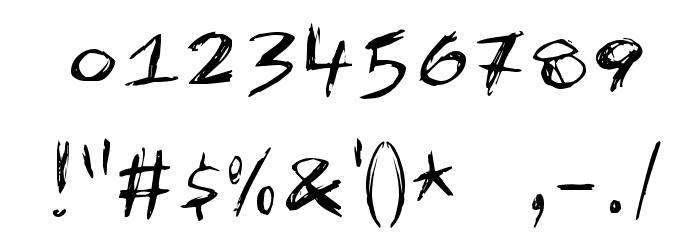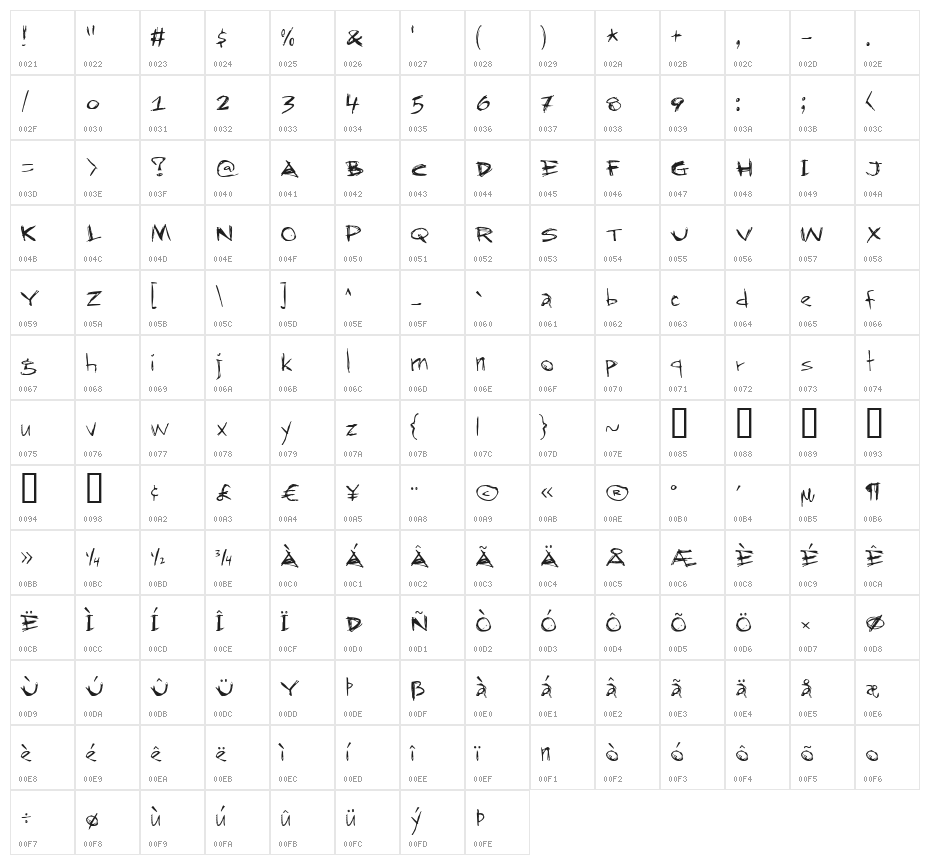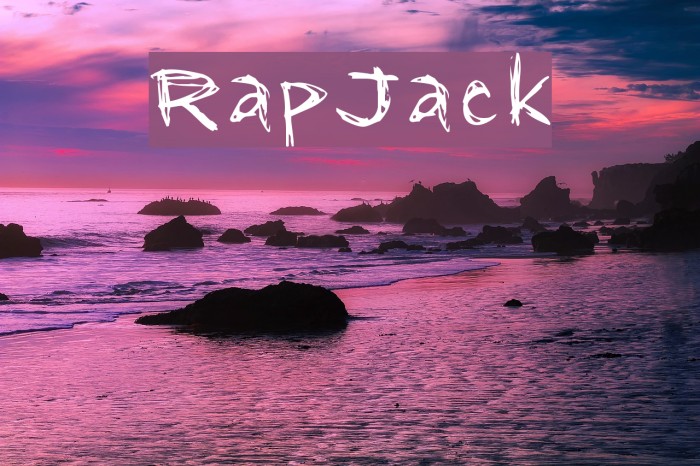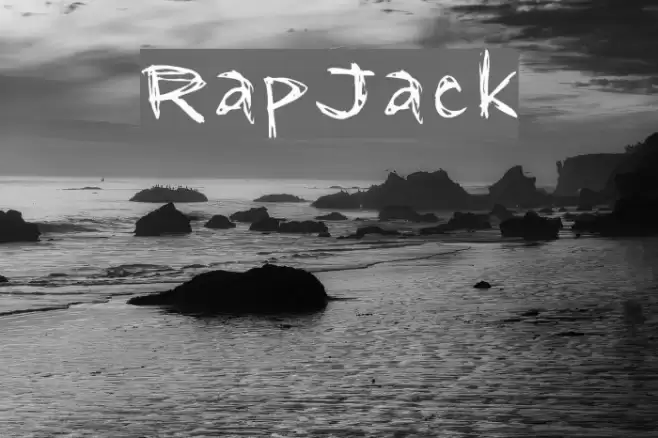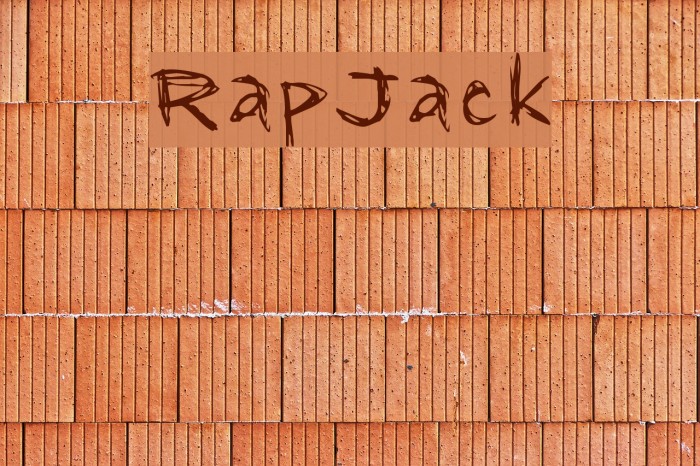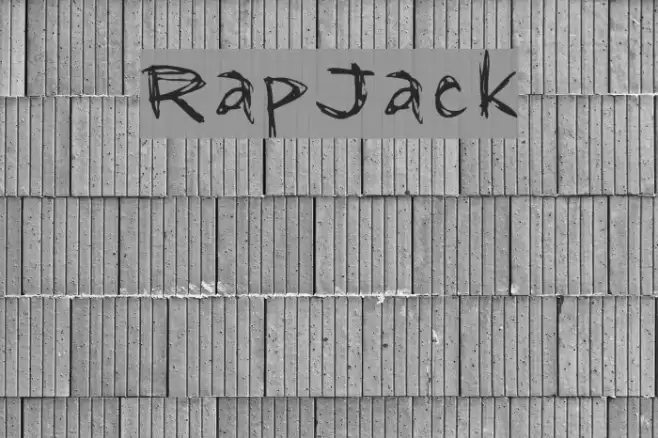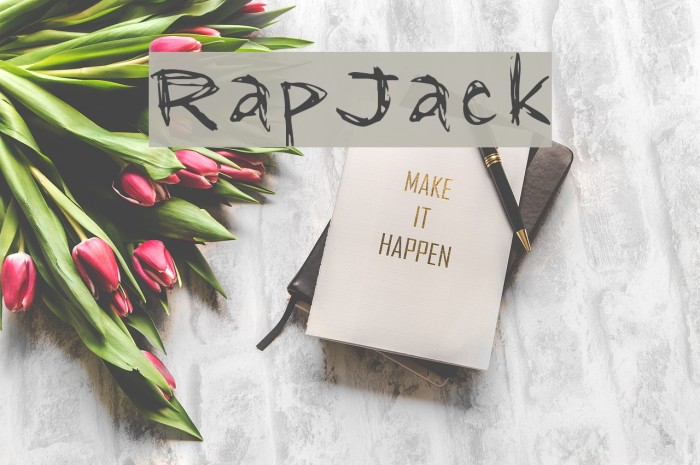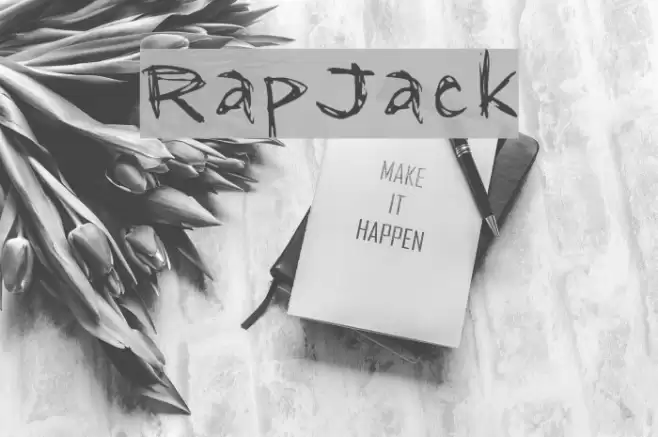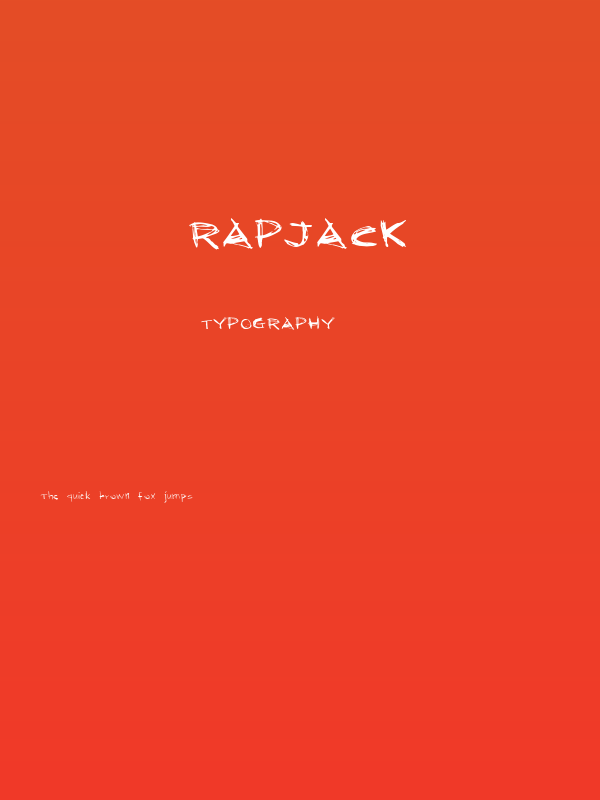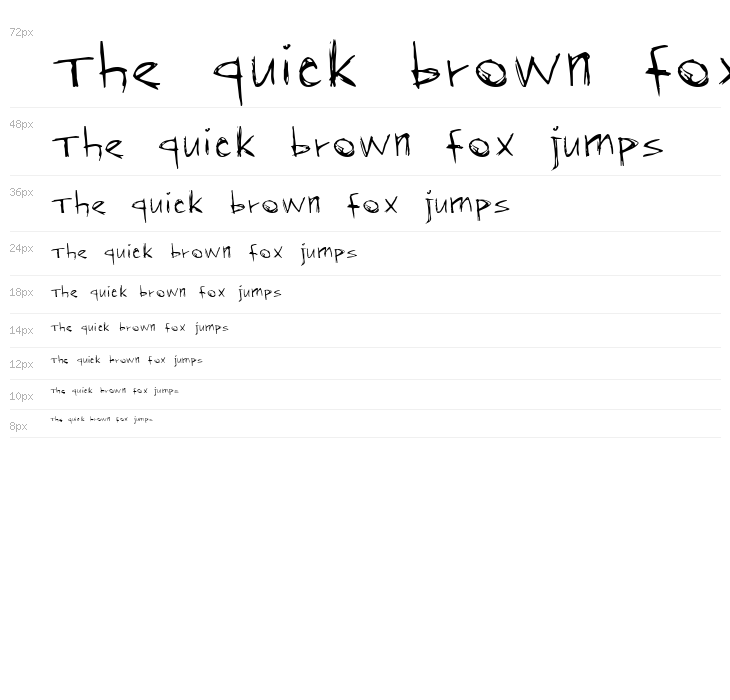
RapJack Font
RapJack Description
This font features a bold and edgy design with a hand-drawn appearance. The characters are irregular and have a rough, textured look, resembling brush strokes or graffiti. The uppercase and lowercase letters maintain a consistent style, with jagged edges and varying line thickness, giving it a dynamic and energetic feel. The numbers and special characters follow the same aesthetic, making the font suitable for projects that require a rebellious or artistic touch. Its unique style makes it stand out, perfect for grabbing attention.
| Proposed Projects | Ideal for music album covers, street art-inspired designs, posters, and edgy branding projects. |